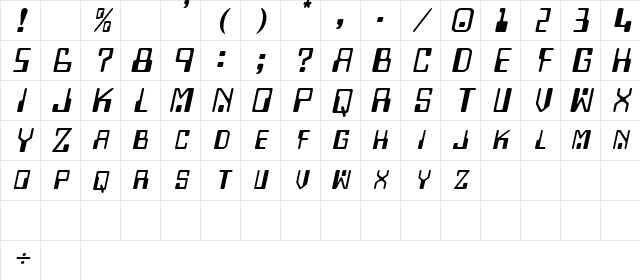
DigitalMachine Oblique Free Font
DigitalMachine Oblique
Design Context for DigitalMachine
DigitalMachine has a distinctly futuristic character, with geometric precision and clean angles that feel at home in technology, gaming, and sci-fi contexts. The slanted form adds forward momentum and visual energy.